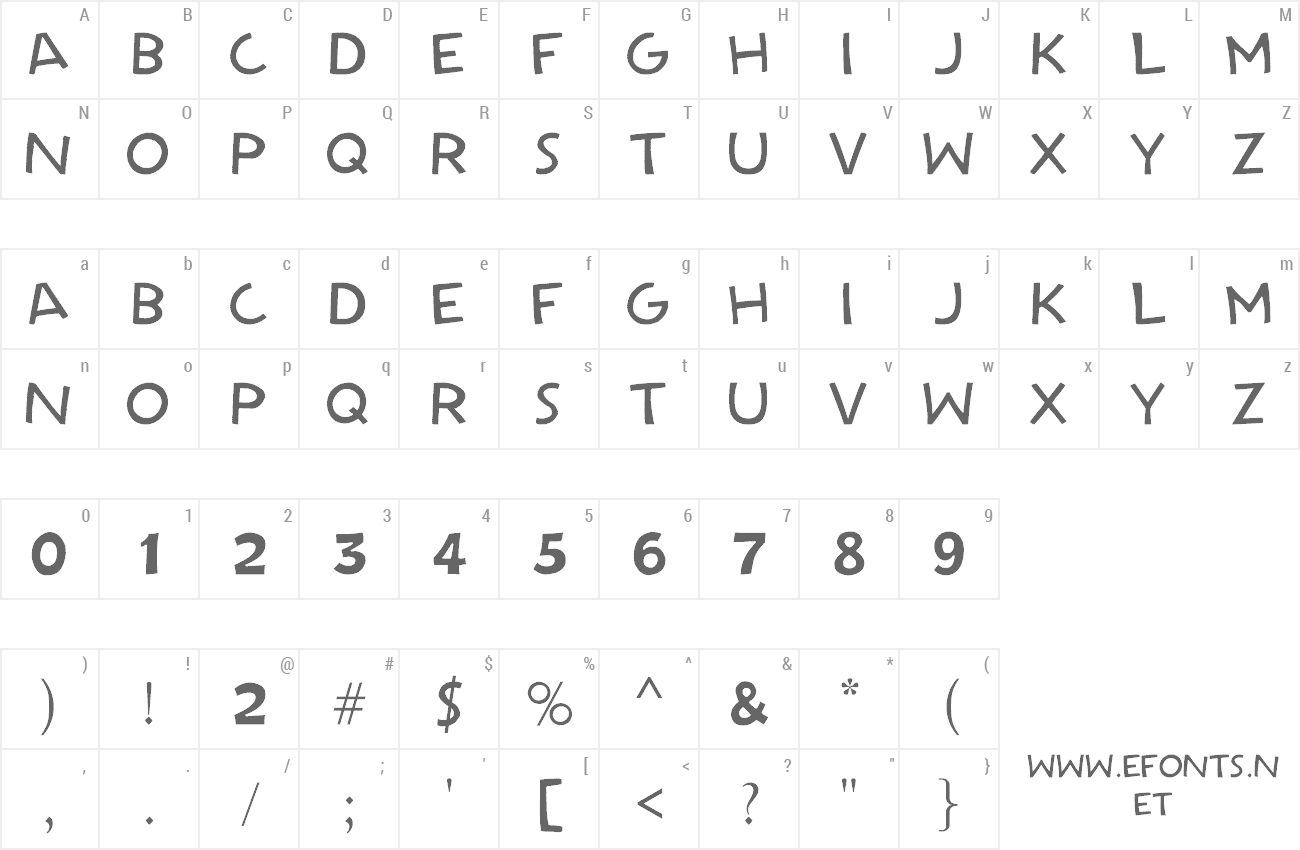
| Font name: | Powerhouse Era |
| Author: | Lemon Line |
| Note by Lemon Line | |
| Based of The Powerhouse Era Bumpers/Idents from Cartoon Network made by Primal Screen. it's also the logo of Cartoon Cartoons. |